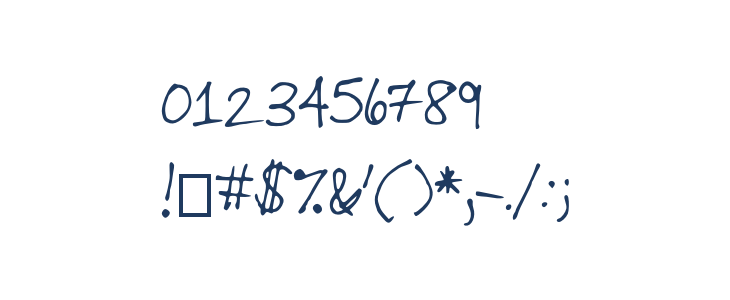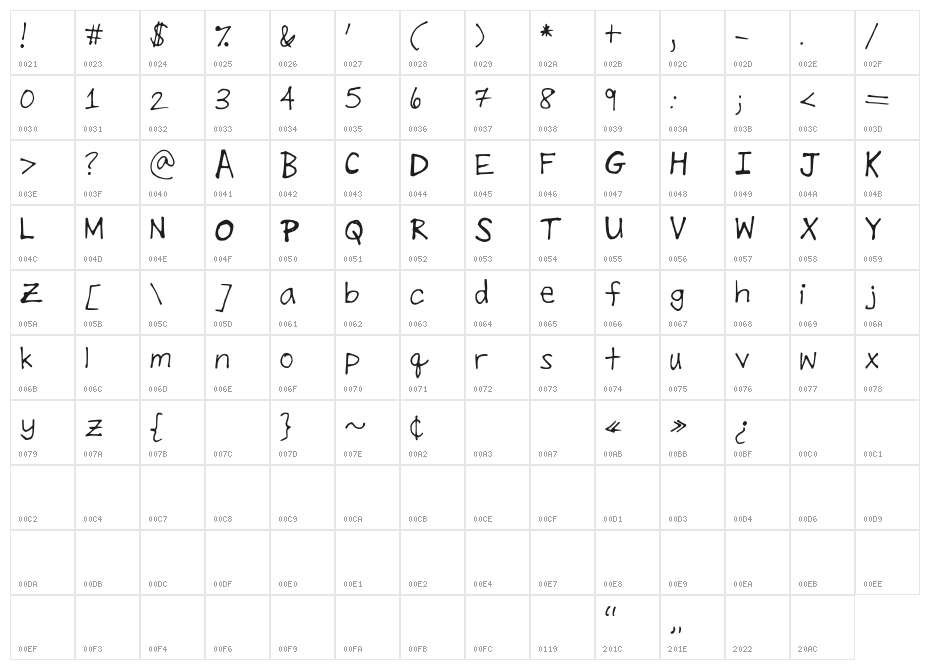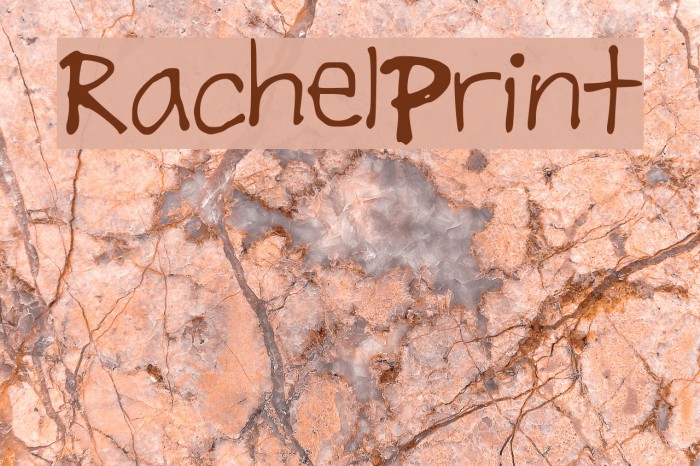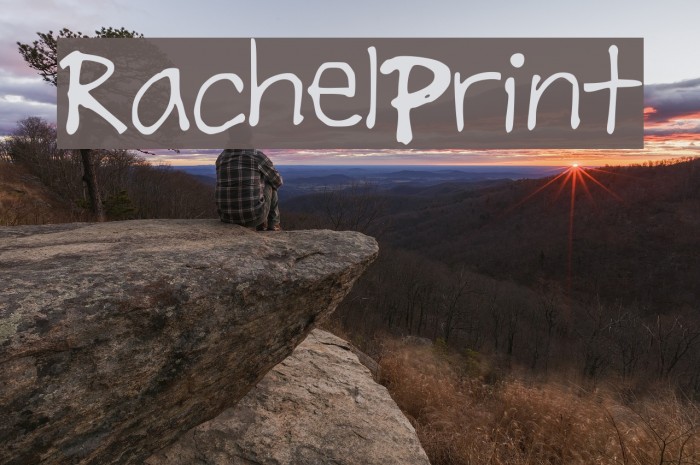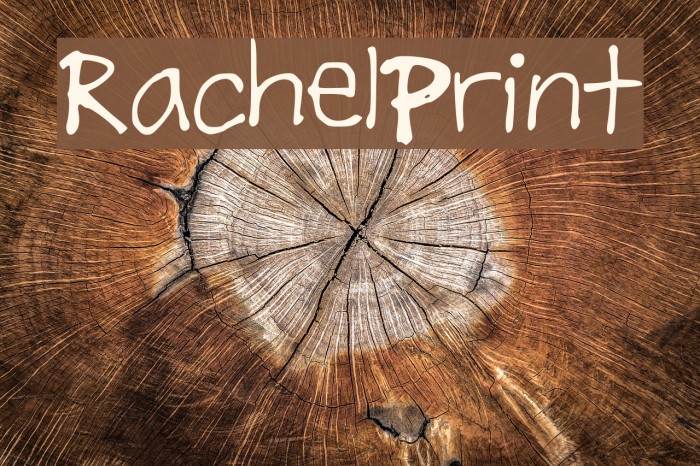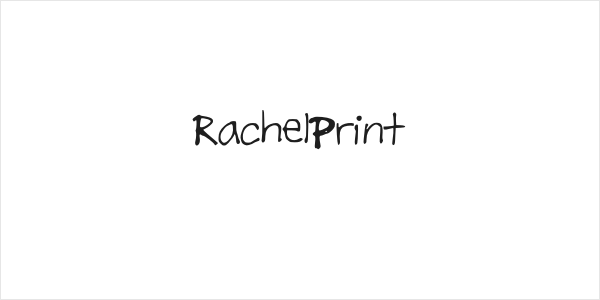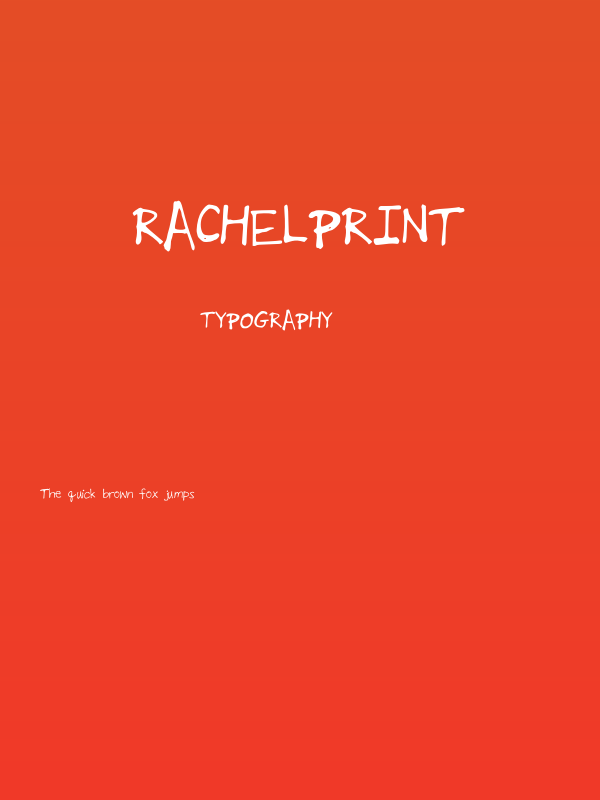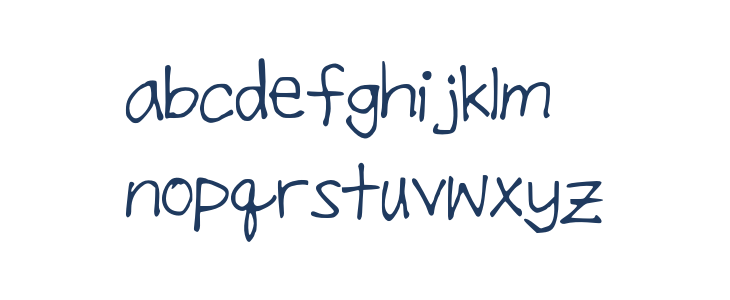
RachelPrint Font
RachelPrint Description
This font exudes a playful and informal vibe, characterized by its handwritten style that mimics casual penmanship. The letters are slightly irregular, adding a personal touch and a sense of authenticity. The strokes are consistent in thickness, providing a uniform appearance across all characters. This font includes both uppercase and lowercase letters, numerals, and a variety of special characters, making it versatile for different uses. Its legibility is maintained despite the informal style, making it suitable for both digital and print media.
| Overall Style | Casual |
| Use Case | Headlines, Informal text, Personal projects |
| Proposed Projects | Ideal for greeting cards, personal blogs, children's books, and casual branding projects. |